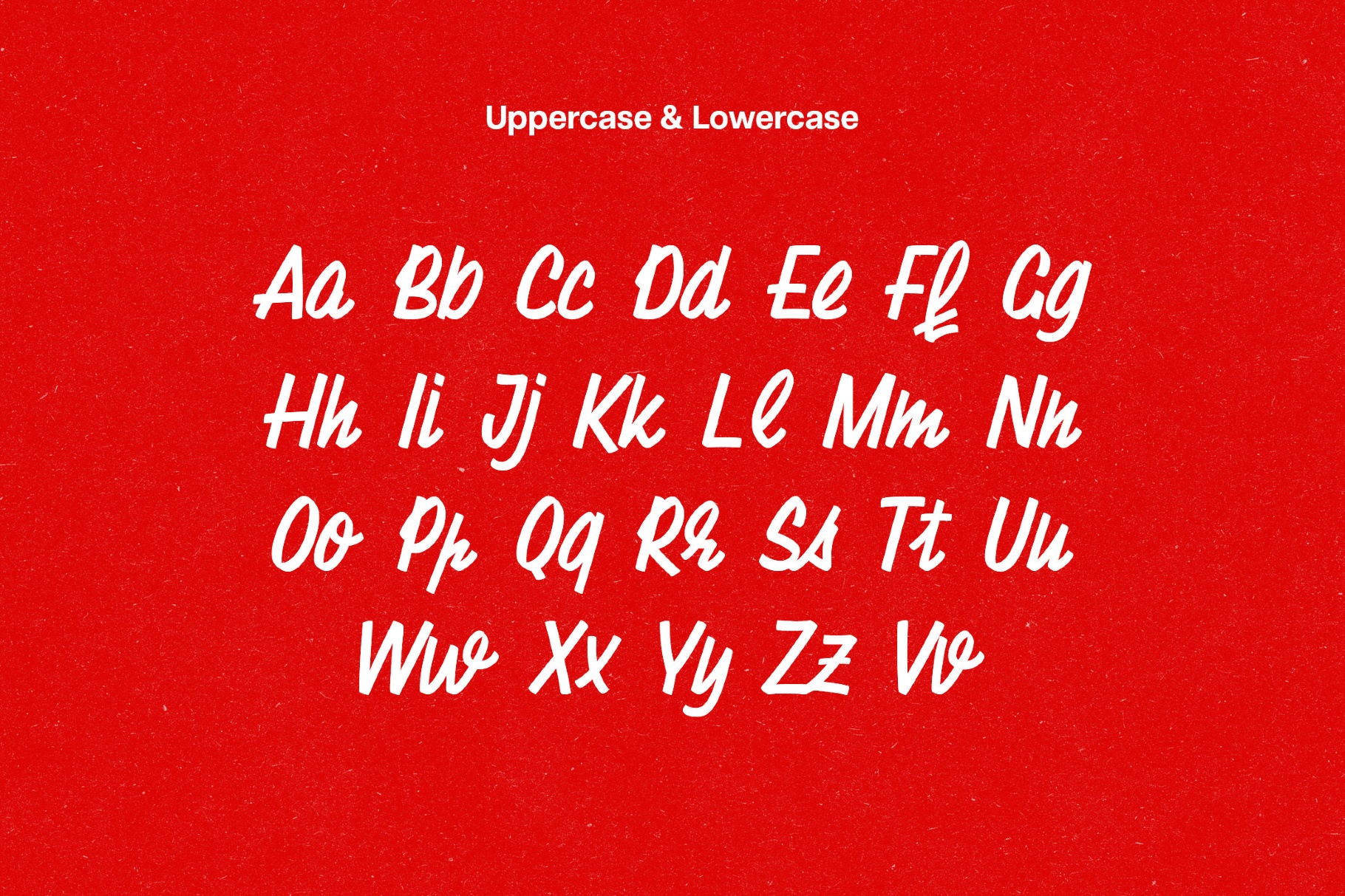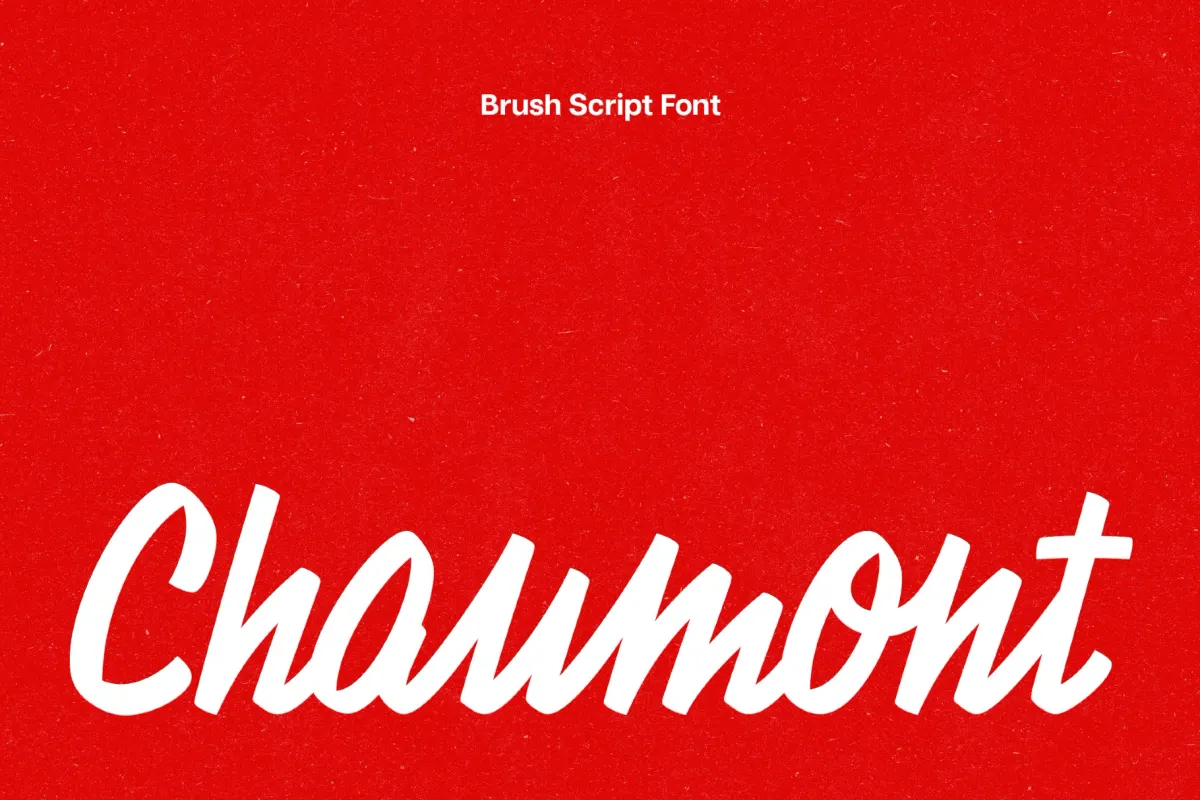
Chaumont Scipt Font
It is a lively brush script with narrow, quick cursive forms and sweeping loops, shaped by 1980s French sign painting from the town of Chaumont. The strokes jump between thick and thin with a brisk, hand-painted rhythm, so short phrases look immediate and expressive. Use it for poster headlines, album and film titles, boutique logos, packaging labels, café menus, event branding, and social banners.